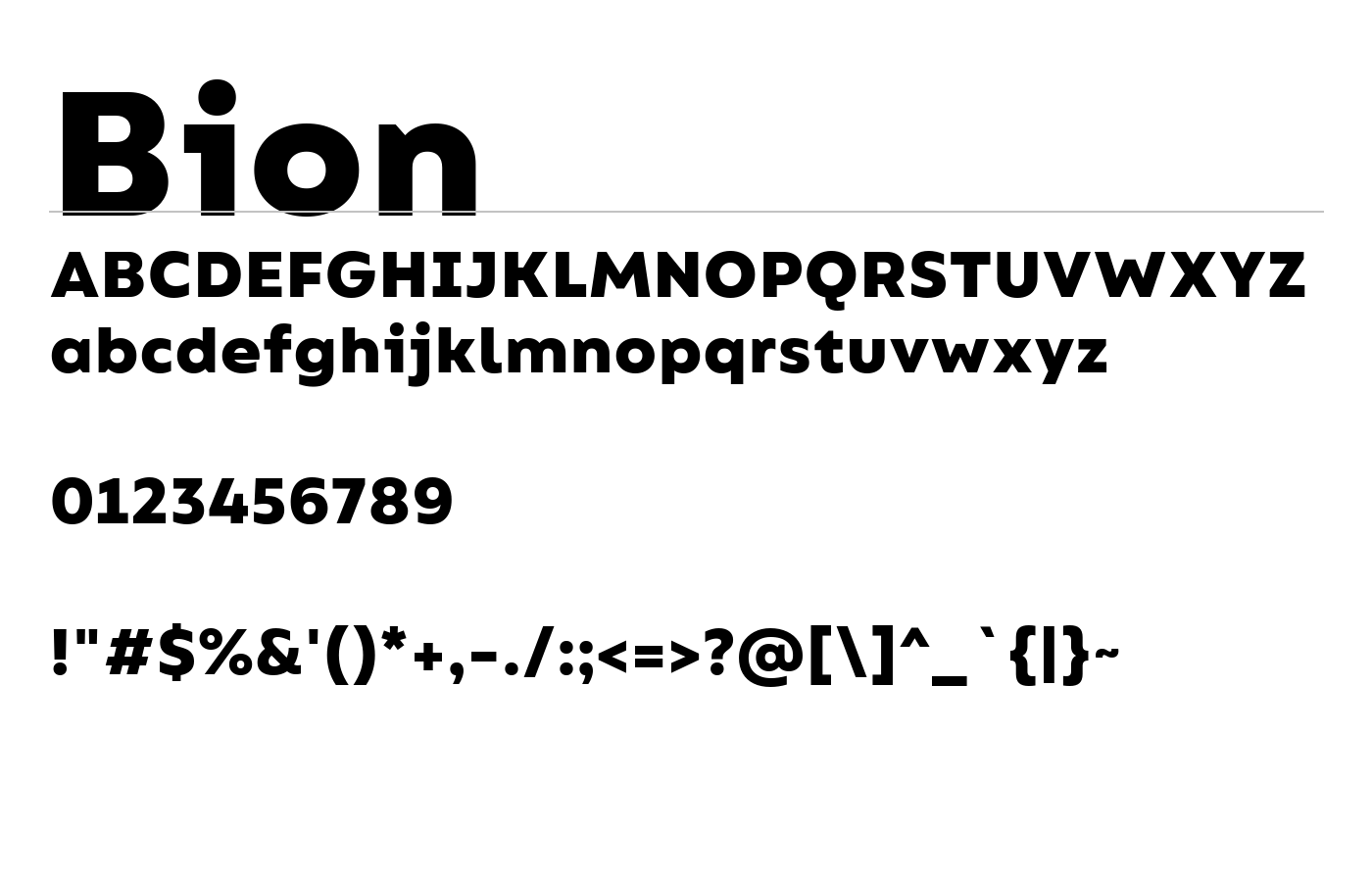
Bion is a bold, geometric sans serif font with a strong, modern feel characterized by its clean shapes and uniform stroke weight. Its high x-height and rounded terminals make it easily readable, while the sturdy letterforms convey confidence and clarity, making it ideal for headlines, branding, and any design needing a contemporary, impactful presence. This font works especially well in logos and editorial designs where a bold, straightforward statement is desired.
Bion Font
About Bion Font
| Font family | Bion Font |
| Languages supported | Latin, Cyrillic, Symbols, Greek |
| Designer | Mirela Belova, Stan Partalev |